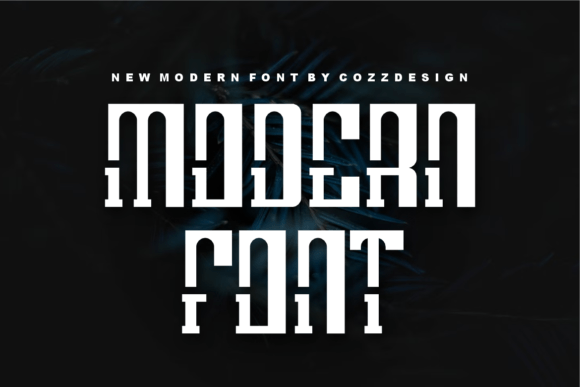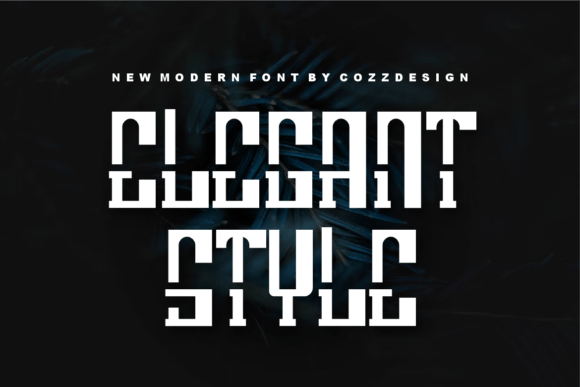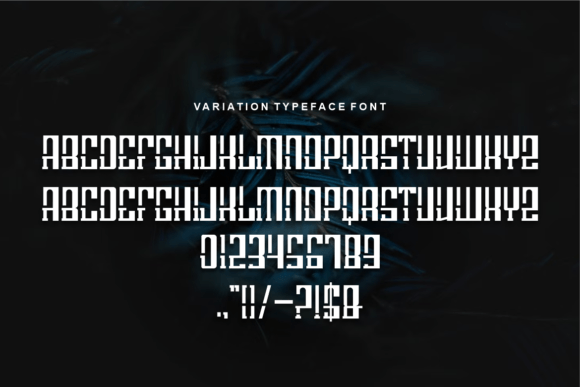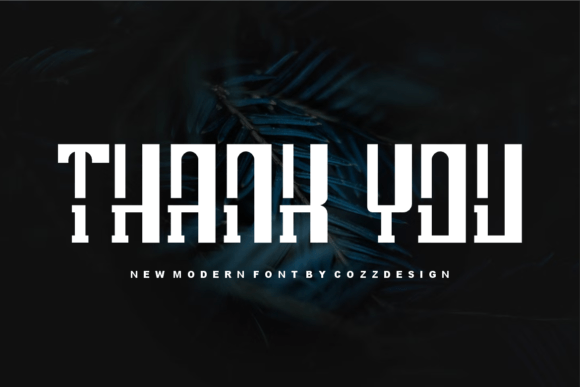
The Gahesing Font: A Fun and Modern Display Font to Elevate Your Designs
Gahesing is a fun and modern display font that has quickly become a staple in my design toolkit. Its unique charm and versatility make it an excellent choice for a wide range of projects, from branding and advertising to crafting and DIY tutorials. In this article, I’ll share my honest review of the Gahesing font, provide a practical guide on how to use it, and explore similar fonts and alternatives.
My Honest Review of Gahesing Font
What I Love About Gahesing Font
- ✨ Unique and eye-catching design: Gahesing’s modern and edgy style sets it apart from other display fonts.
- ✅ Highly versatile: This font can be used for a wide range of projects, from bold headings to creative crafts.
- 💡 Excellent for branding and advertising: Gahesing’s fun and playful vibe makes it perfect for brands looking to make a statement.
- 🎨 Great for creative hobbyists: Whether you’re creating DIY tutorials or crafting projects, Gahesing adds a professional touch.
While Gahesing is an amazing font, there are a few things to keep in mind:
- 🤔 Limited use for body text: Due to its bold and playful nature, Gahesing is best suited for headings and titles rather than body text.
- ⚠️ May not work well for very small sizes: Gahesing’s intricate design may not render well at very small font sizes.
The Backstory of Gahesing Font
The Gahesing font was designed with the intention of creating a modern and edgy display font that would add a touch of fun to any design project. While the actual designer and inspiration behind Gahesing are unclear, it’s evident that the font was crafted with creativity and playfulness in mind.
| Author | cozzdesign |
Q: What type of projects is Gahesing best suited for?
A: Gahesing is perfect for branding, advertising, DIY tutorials, crafting projects, and any design project that needs a bold and playful touch.
Q: Can I use Gahesing for body text?
A: While Gahesing is a beautiful font, it’s best suited for headings and titles rather than body text. Its bold and playful nature may not work well for longer blocks of text.